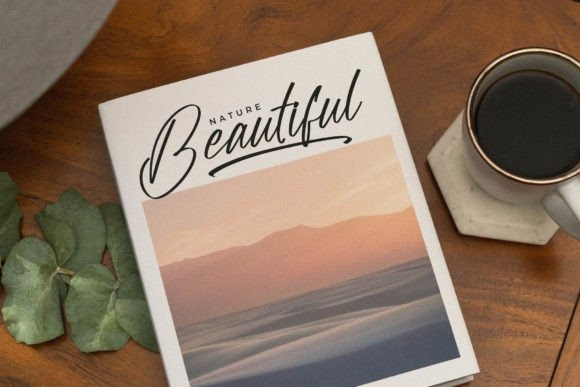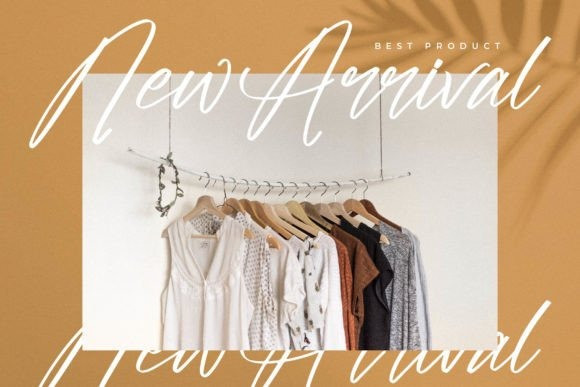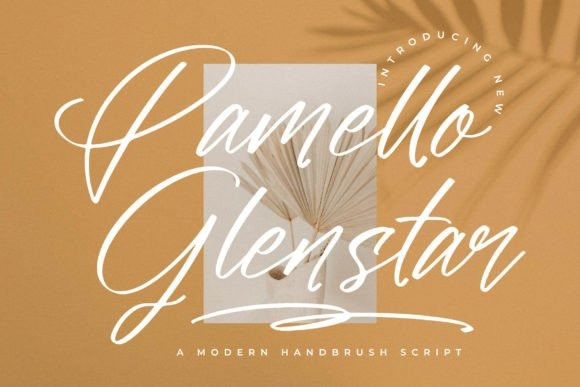
Pamello Glenstar Font
Pamello Glenstar Font is a modern and elegant signature font, perfect for a variety of projects such as logos, branding, homeware designs, product packaging, mugs, quotes, posters, shopping bags, t-shirts, book covers, name card, invitation cards, greeting cards, label, photography, watermark, special events, and all your other lovely projects that need a beautiful script taste.